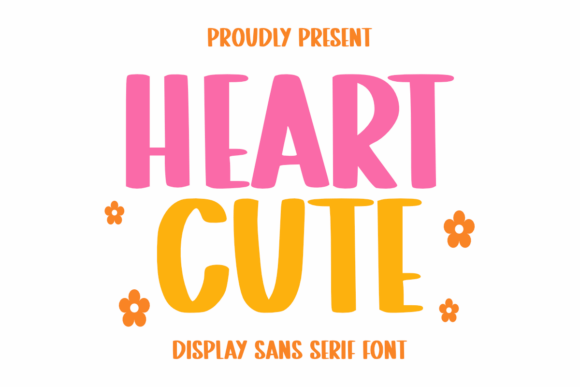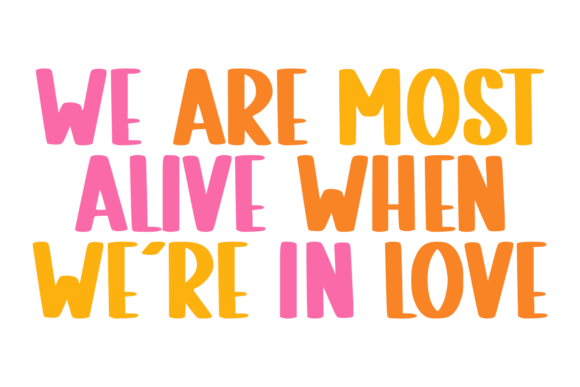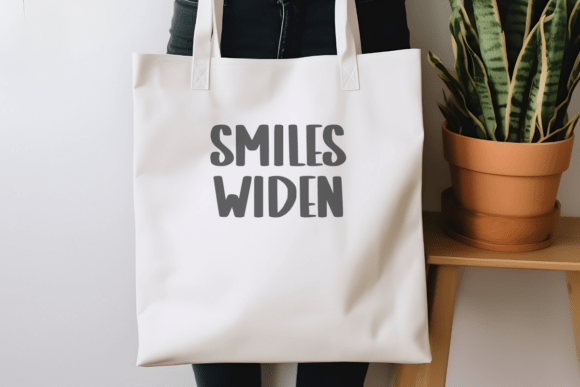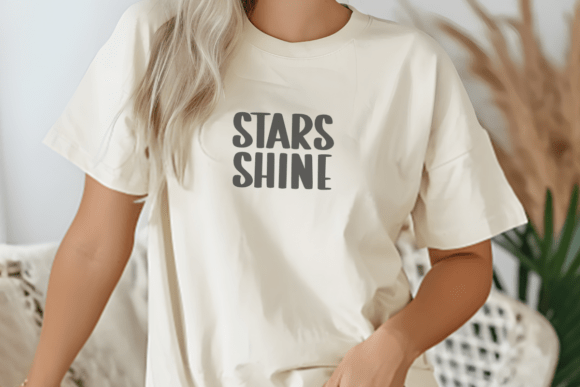
Heart Cute Font
About the Heart Cute Font
Unleash your creativity with Heart Cute Font, a versatile font perfect for a wide range of applications. Heart Cute is a charming sans serif font with a clean yet whimsical vibe. Featuring smooth curves and a hand-drawn feel, this font is perfect for romantic designs, wedding invitations, heartfelt branding, and elegant social media graphics. Its versatile style pairs a modern aesthetic with a touch of playful warmth, making it ideal for creative and love-inspired projects.
Heart Cute’s playful yet refined nature makes it particularly well-suited for headlines, short-form text on packaging, and social media posts. It excels in branding applications where a touch of whimsy is desired, such as for boutiques, cafes, or artisan businesses. However, its delicate forms aren’t ideal for body text or UI elements where high readability is paramount. Extended use could lead to visual fatigue.
Pairing Heart Cute with a clean sans-serif like Montserrat or a classic serif such as Garamond provides a strong contrast, balancing its playful curves with a sense of order. For a more modern feel, a geometric sans-serif like Futura would complement its charm without overpowering it. Alternatively, a delicate script font could enhance its romantic undertones for wedding-related projects.
The font’s overall personality is best described as friendly and approachable, with a touch of elegance. It’s a versatile choice for brands looking to project warmth and approachability, while retaining a sophisticated aesthetic.
Heart Cute Font Usage Examples
Heart Cute Font Example